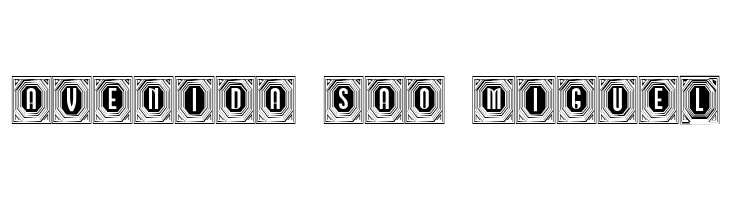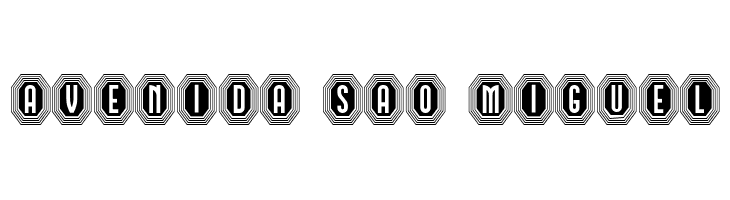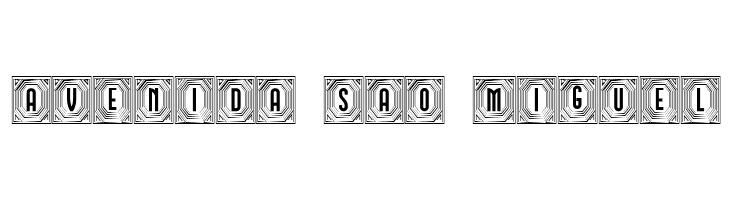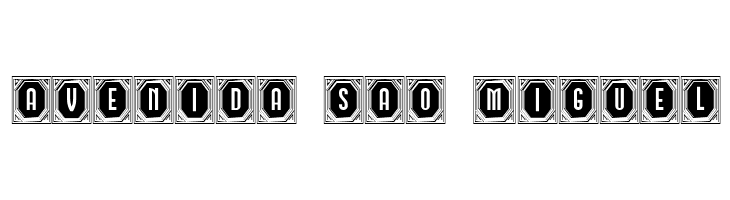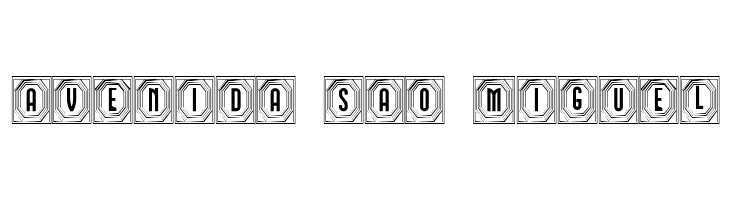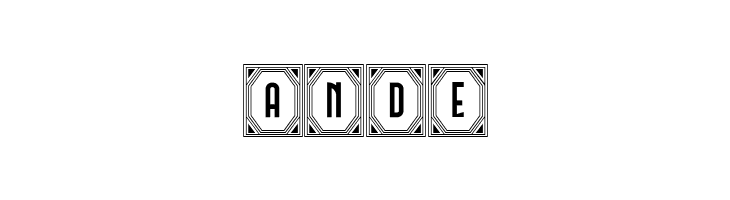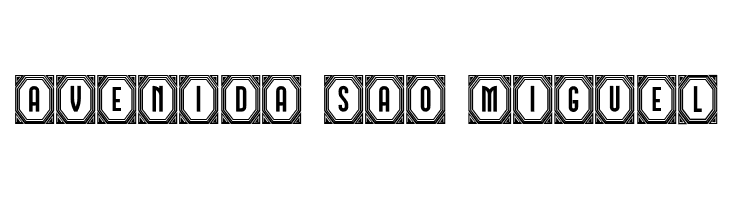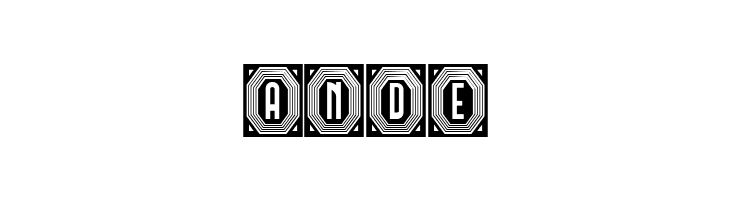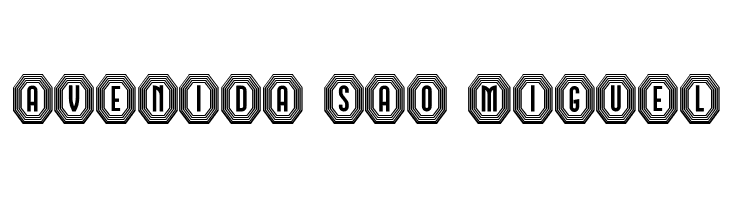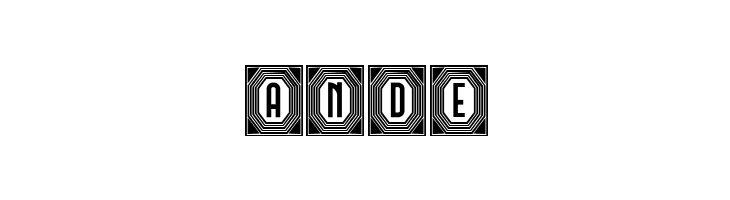
• Capicola Sansish Open
( Jeff Bensch - jbensch.deviantart.com )
A modern, bold font with open outlines and a condensed style.
• Capilan
A bold, hand-drawn font with an expressive and playful style.
• Capillary
A bold, playful font with a hand-drawn, graffiti-like style.
• Capinella ou Beaujolais
An elegant, cursive script font with flowing, ornate characters.
• Caping Gunung
A bold, playful script font with thick, rounded strokes and a lively, interconnected design.
• Capital Briquets
A bold, angular font with a playful and dynamic style.
• Capital Clickbait
A bold, geometric font with rounded edges and a modern style.
• Capital regular
• Capital Relationship Regular
A bold, decorative font with a unique dotted border around each character.
• Capital Revolution
• Capitalismo 1 Regular
A bold, decorative font with geometric borders and sans-serif characters.
• Capitalismo 10 Regular
A bold, geometric font with decorative octagonal frames around each character.
• Capitalismo 11 Regular
A bold, geometric font with Art Deco-inspired octagonal frames around each character.
• Capitalismo 12 Regular
A bold, geometric font with characters enclosed in multi-layered octagonal borders.
• Capitalismo 13 Regular
A bold, decorative font with characters enclosed in octagonal frames, ideal for striking designs.
• Capitalismo 2 Regular
A bold, geometric font with decorative borders and a modern, industrial style.
• Capitalismo 3 Regular
A bold, decorative font with geometric octagonal frames around each character.
• Capitalismo 4 Regular
A bold, geometric font with Art Deco-inspired octagonal frames.
• Capitalismo 5 Regular
A bold, geometric font with Art Deco-inspired octagonal frames.